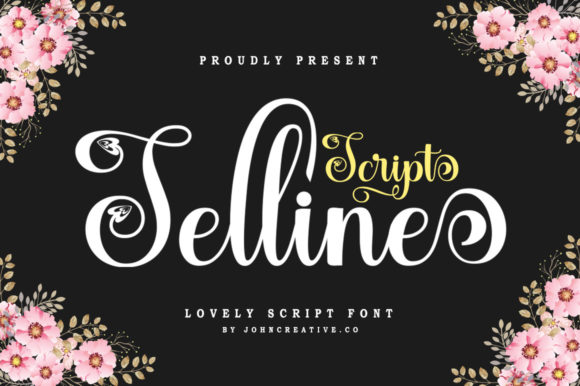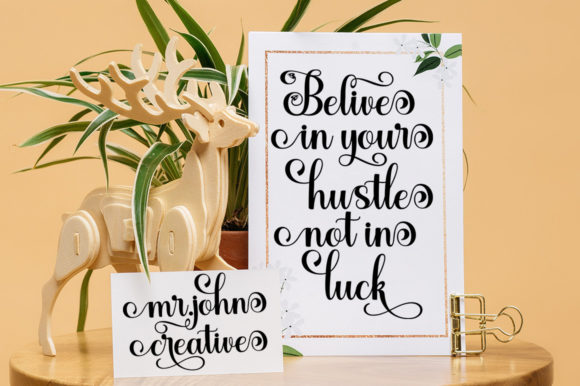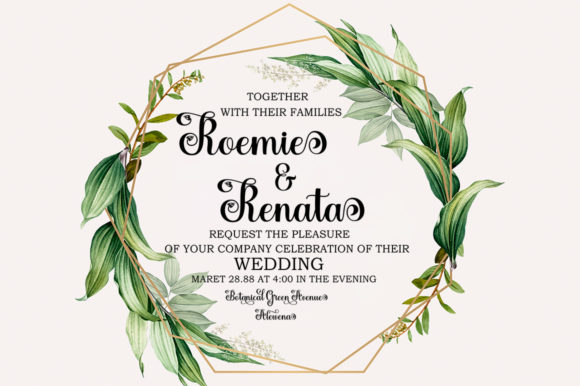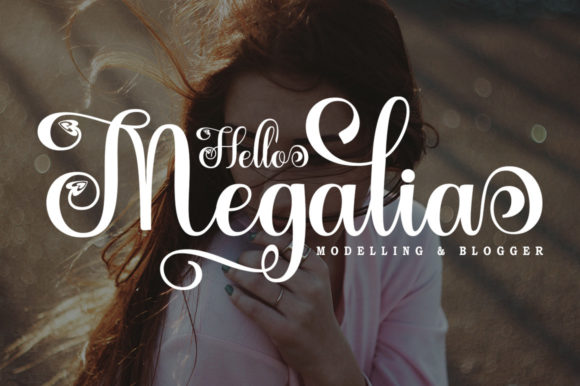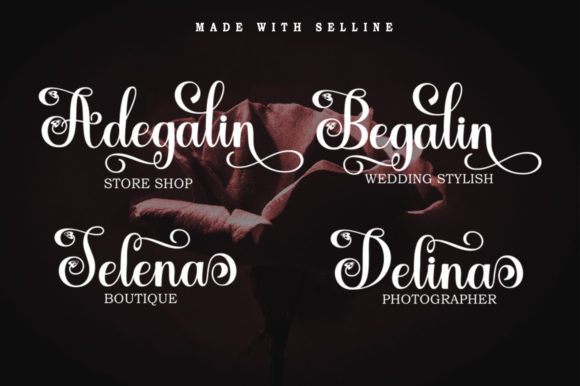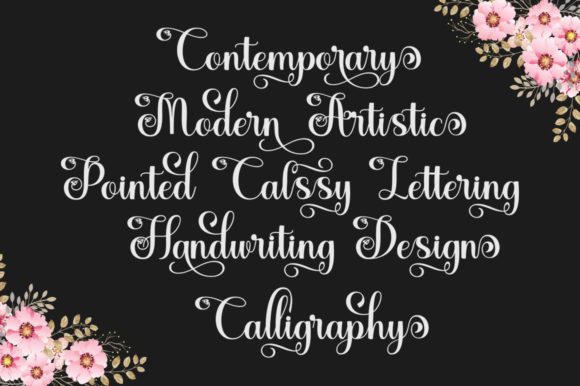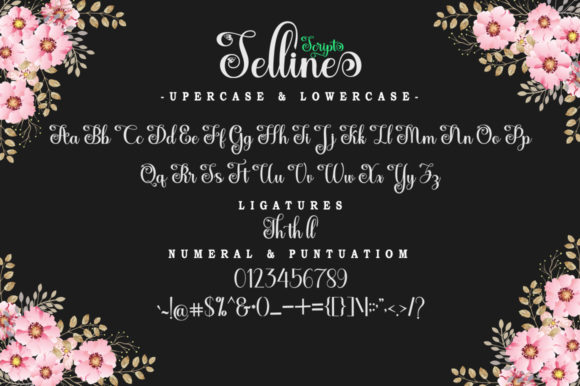
Selline Script Font
Selline Script is a stunning and contemporary handwritten font that exudes elegance and style. With its beautifully crafted characters, it is the perfect choice for a wide range of design projects, adding a sophisticated handwritten touch that captures attention and creates a lasting impression.
For wedding invitations and thank you cards, Selline Script brings a sense of romance and charm. Its flowing and graceful strokes create a sense of intimacy, making it ideal for capturing the emotions of a special occasion and conveying heartfelt messages.
In quotes and greeting cards, Selline Script adds a personalized and artistic element. The font’s unique style adds a touch of authenticity and creativity, enhancing the impact of your words and making them resonate with your audience.
Selline Script’s contemporary look makes it a versatile option for branding and logo design. Whether you’re creating a logo for a modern business or a stylish product, the font’s clean lines and fluid design contribute to a professional and appealing visual identity.
Business cards and other marketing materials benefit from Selline Script’s elegant touch. Its handwritten quality adds a sense of approachability and warmth, helping to establish a strong and positive connection with potential clients and customers.
The inclusion of PUA encoding allows easy access to all glyphs and swashes, providing you with the flexibility to customize and embellish your designs with decorative elements that suit your creative vision.
Overall, Selline Script is a truly versatile and exquisite font that can elevate a wide range of design projects. Its contemporary and stylish appearance, combined with its handwritten charm, makes it a wonderful choice for adding a sophisticated and personalized touch to your creations.